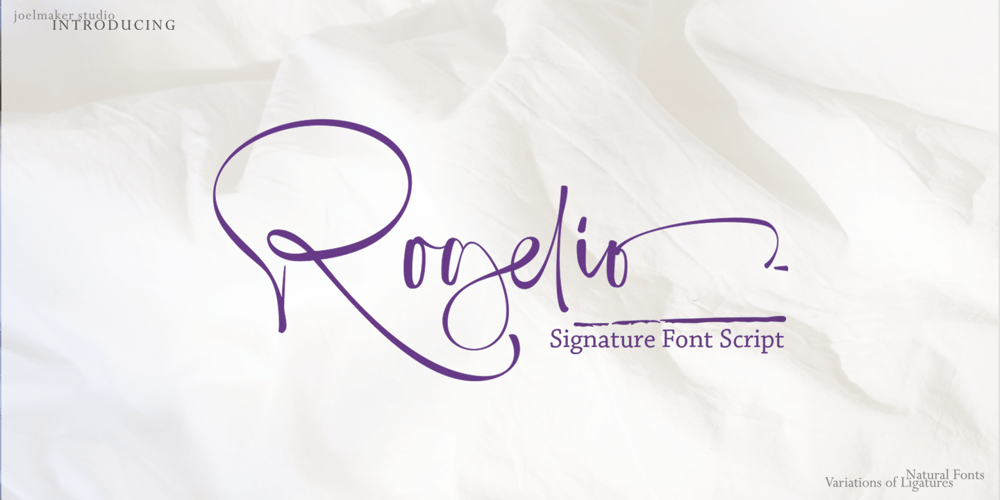
Rogelio Script Font Family was designed by Joelmaker and published by Joelmaker. Rogelio Script contains 1 styles and family package options. Rogelio Script is a stylish modern calligraphy font with casual chic flair. It is perfect for branding, wedding invites and cards, signature and maybe for red wine label. Rogelio Script includes full set of gorgeous uppercase and lowercase letters, numerals, a large range of punctuation and variation ligatures. All lowercase letters include beginning and ending swashes, giving realistic hand-lettered style. What you get, darling?In order to use the beautiful swashes, you need a program that supports OpenType features such as Adobe Illustrator CS, Adobe Photoshop CC, Adobe Indesign and Corel Draw.